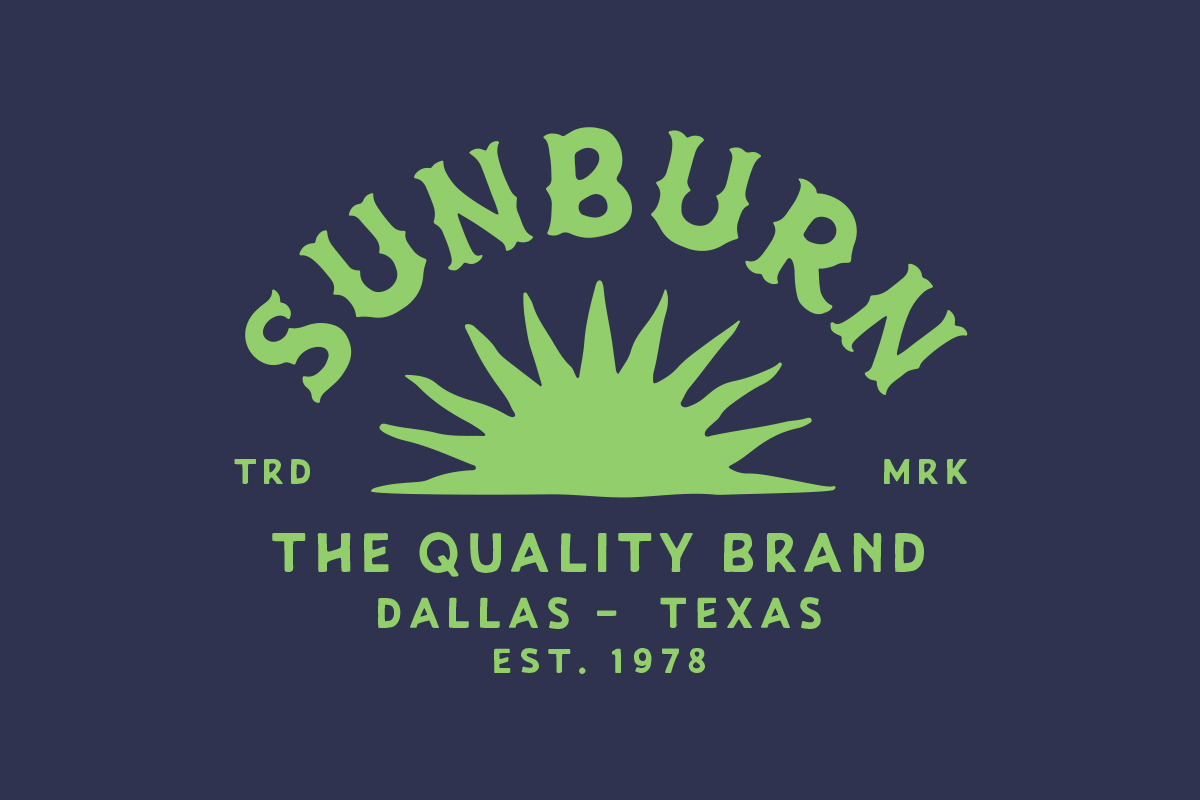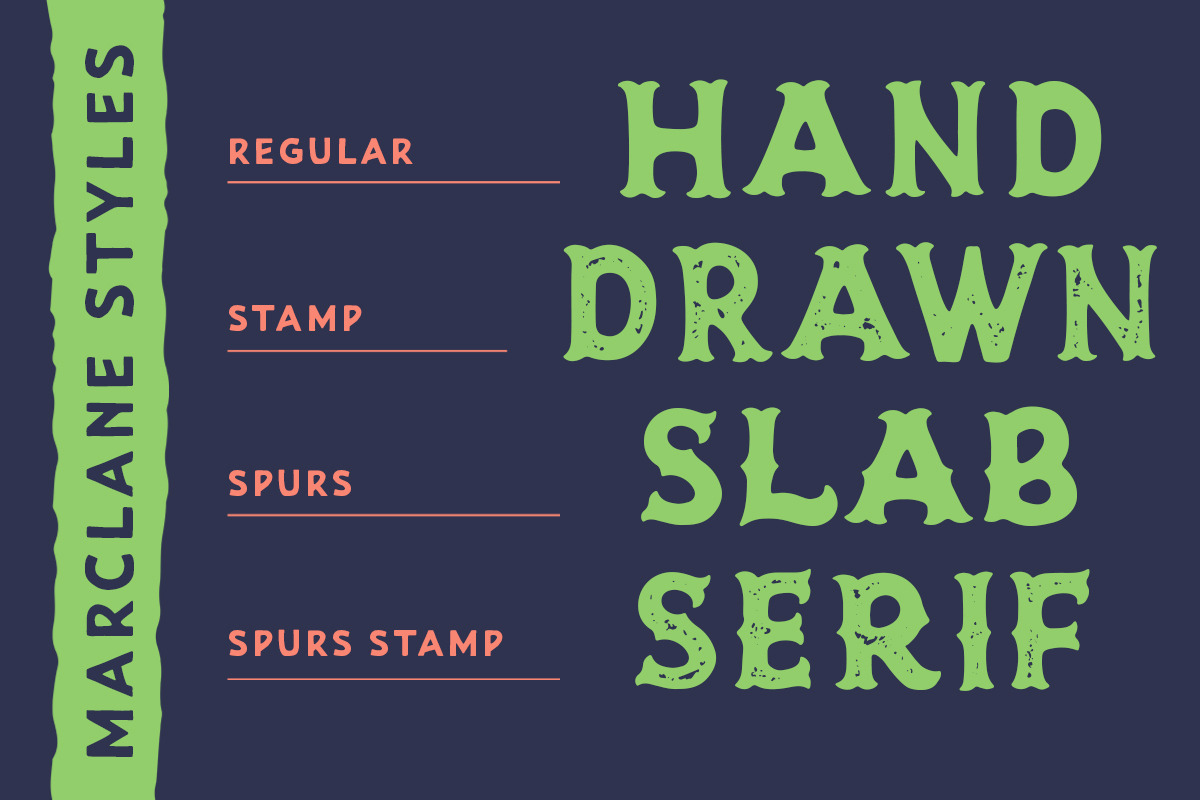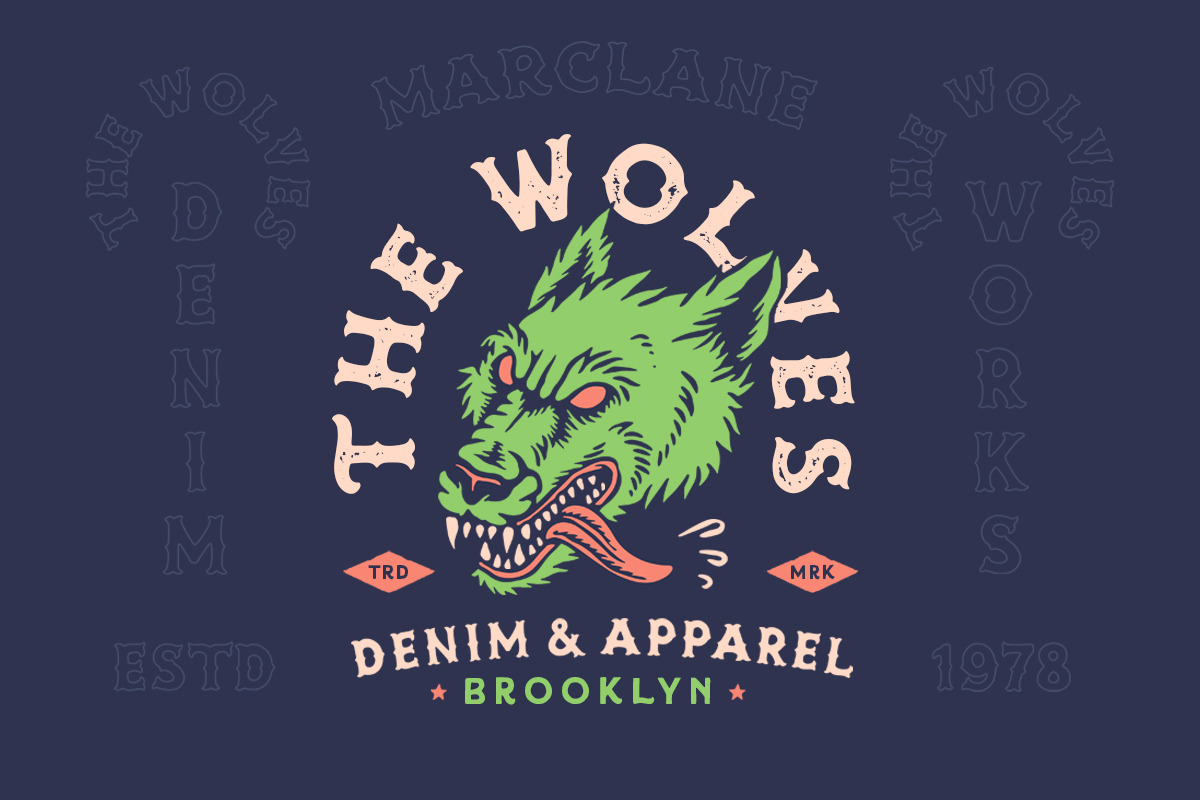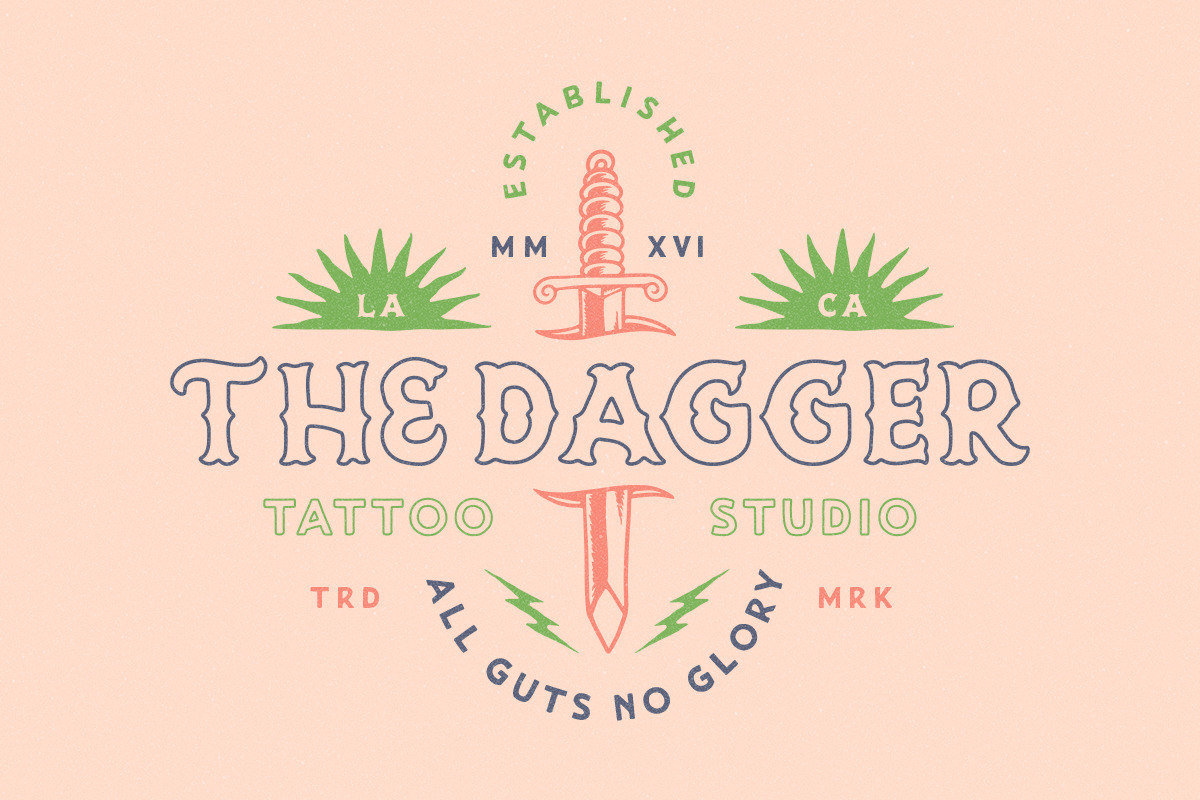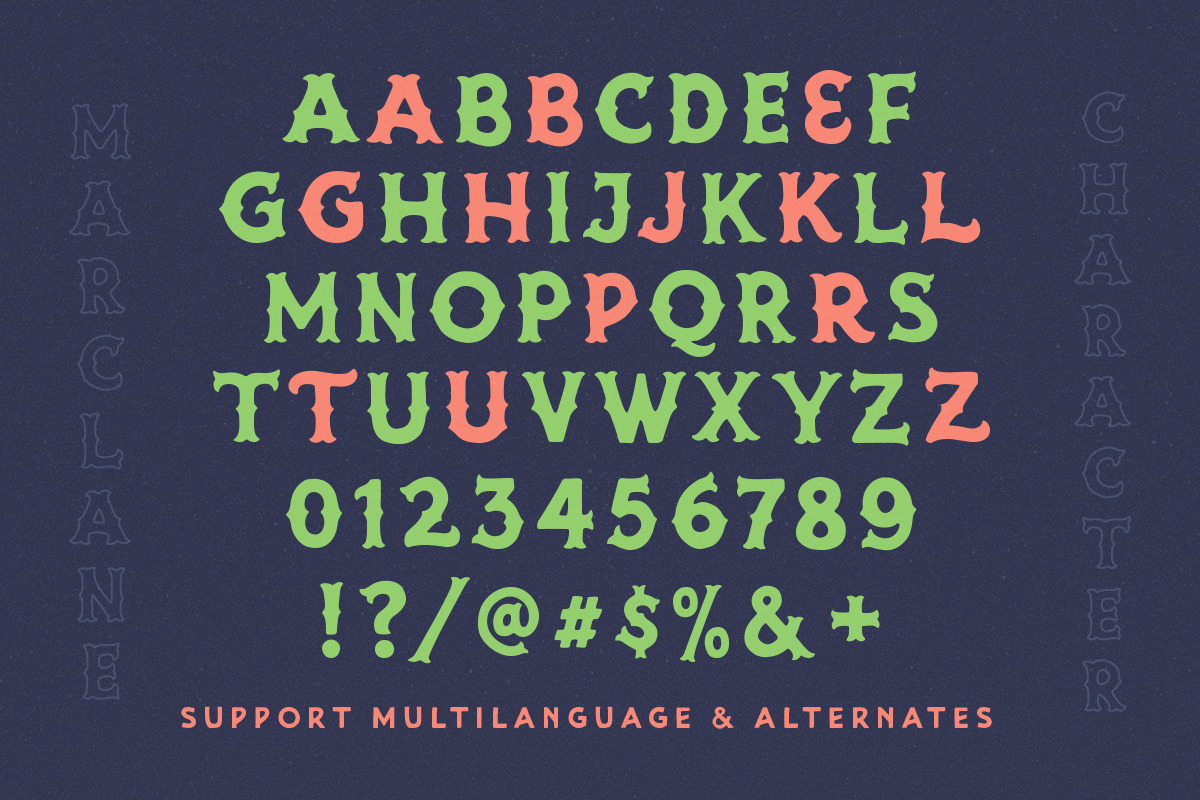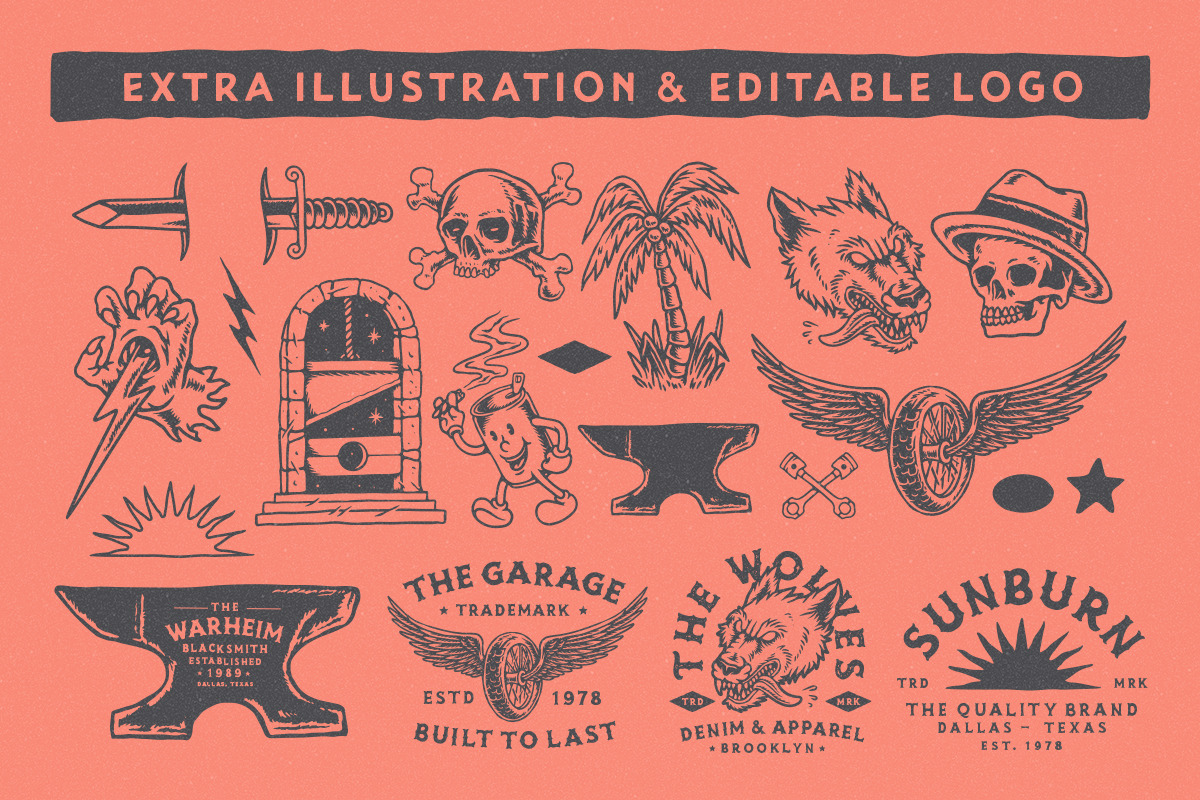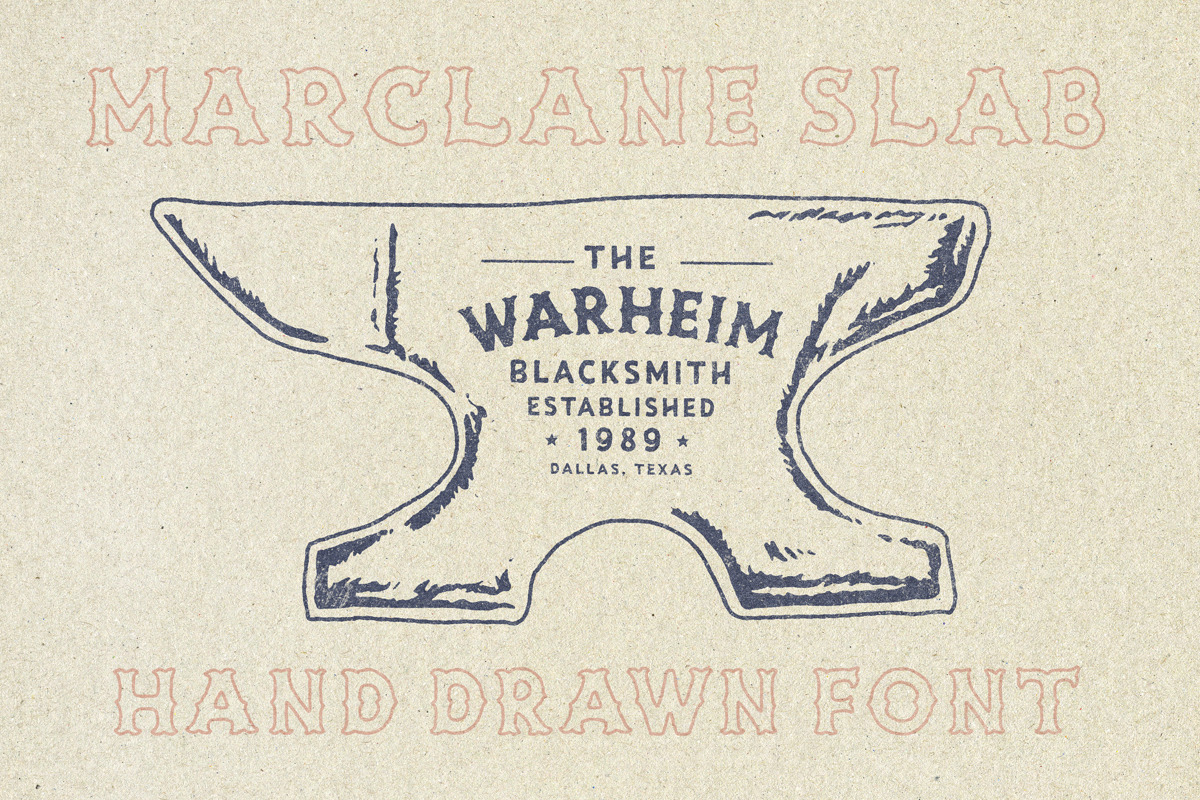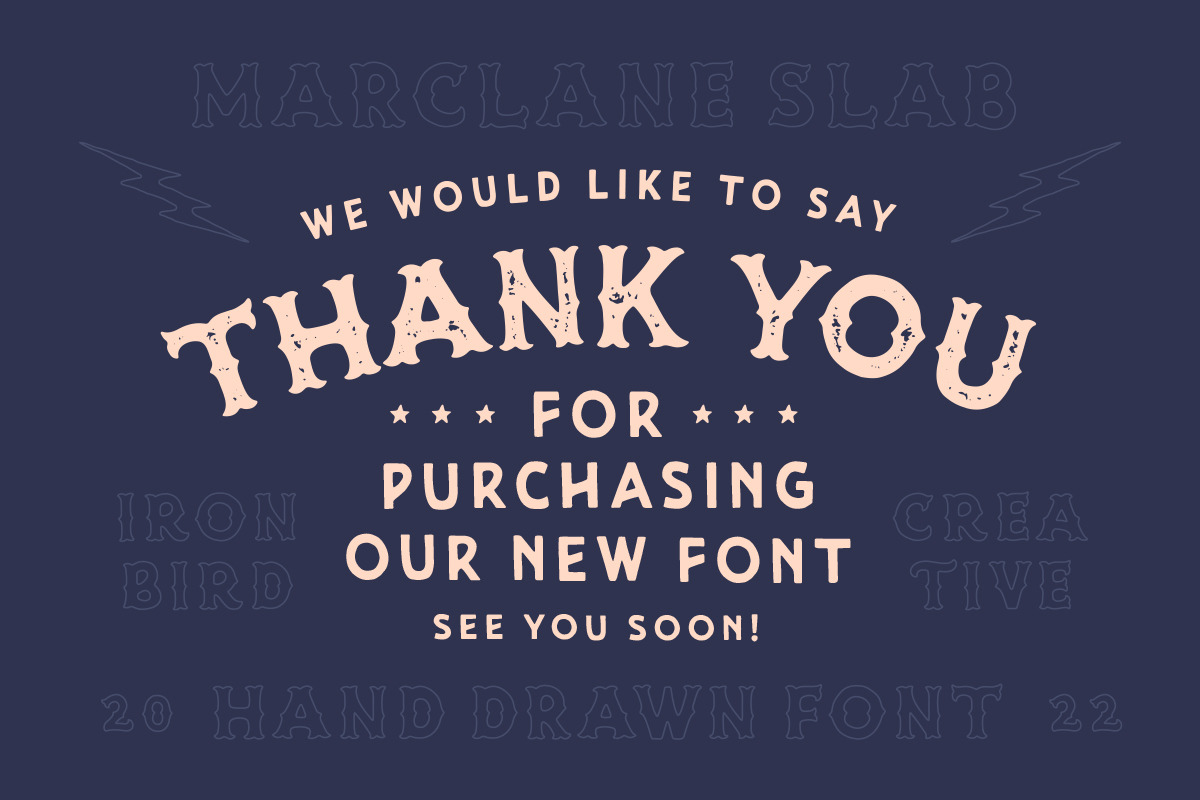
Marclane & Extras
Marclane is a hand drawn slab serif typeface. This item consist of 4 fonts in various styles which you can play around with it and also come with EXTRA ILLUSTRATION & PREMADE LOGO to make better design. This typefaces is perfect for people looking for vintage aesthetic and organic feel or design needs with a touch of classic western.